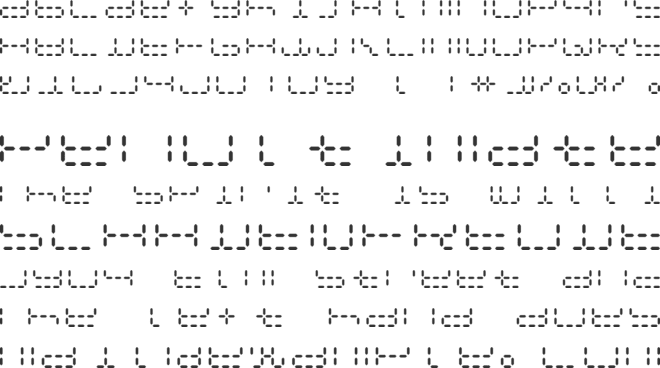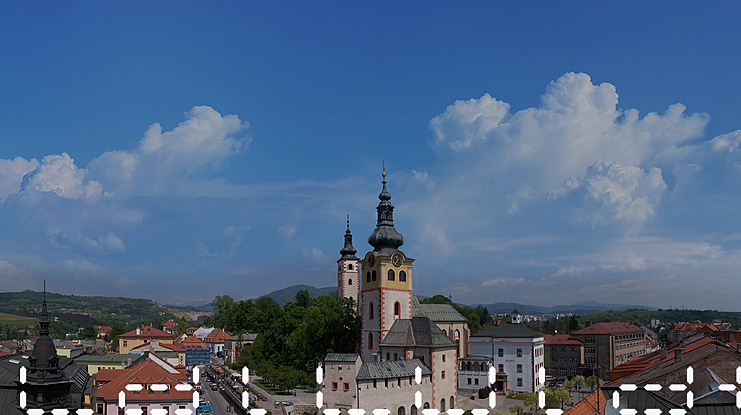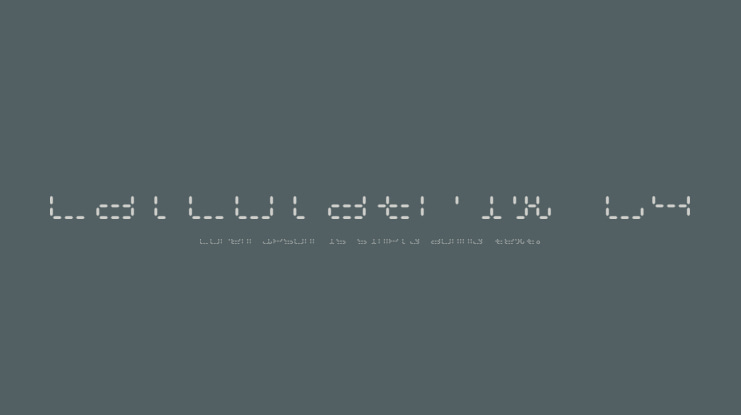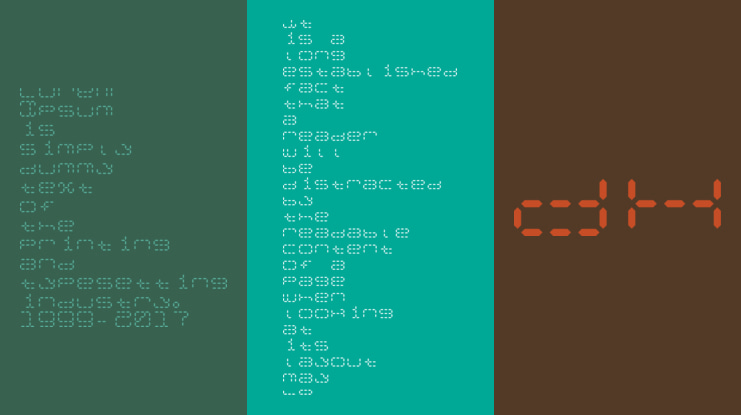
Calculatrix 24 Font
24-segment display. This one belongs to a small family called Calculatrix.
Like Calculatrix 12, this one is spaced so that every segment appears in its proper place, as if the text were being rendered on one giant display. (If using this in your own software, you will want to check the line spacing as it can vary depending on the software.)
I suppose this font could be used for weaving or embroidery work, as well... it has that look about it...